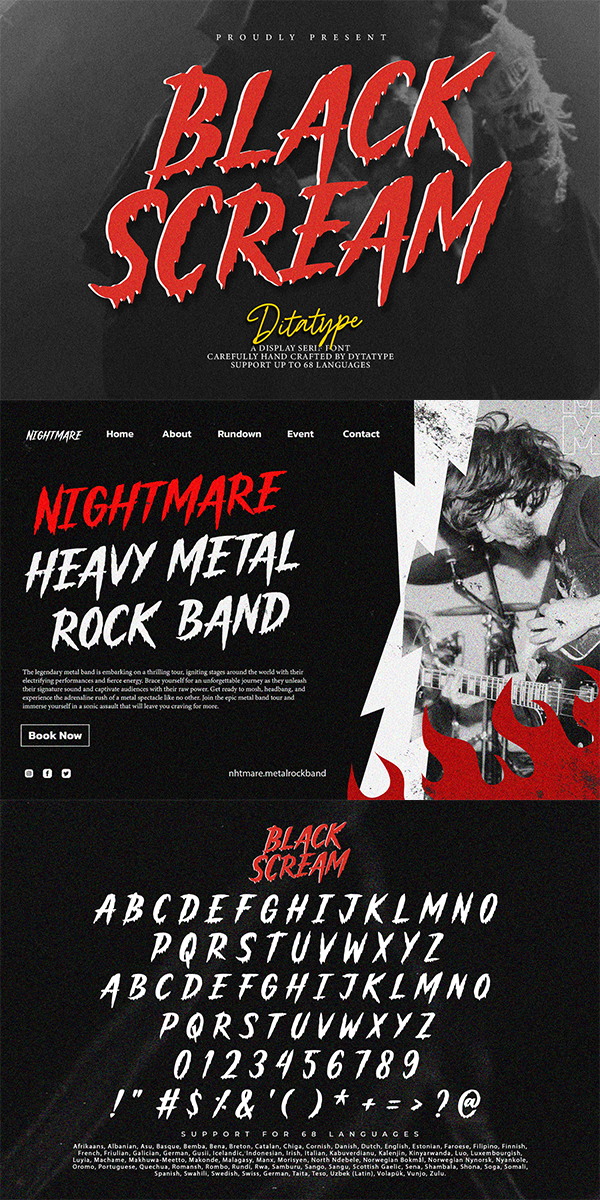
Black Scream Font
About Black Scream
Black Witcher is a spine-chilling display font that will cast a spell of fear on your designs. With its big letters and bold weight, this font demands attention and exudes an aura of dread. The horror theme is brought to life with meticulously crafted tree root details on each letter, adding a nightmarish and eerie touch to the font. Each letter in this font is bold and impactful, making a powerful statement in your designs. The large size of the letters enhances the font’s haunting presence. The tree root details in Black Witcher give the font a sinister and otherworldly appearance, as if the letters are entangled with ancient and malevolent roots. These haunting details add a sense of mystery and foreboding, immersing the viewer into a world of dark and chilling horrors. For the best legibility you can use this font in the bigger text sizes. Enjoy the available features here.
Black Witcher fits in headlines, logos, movie posters, flyers, invitations, branding materials, print media, editorial layouts, headers, and any horror-themed project. Find out more ways to use this font by taking a look at the font preview.